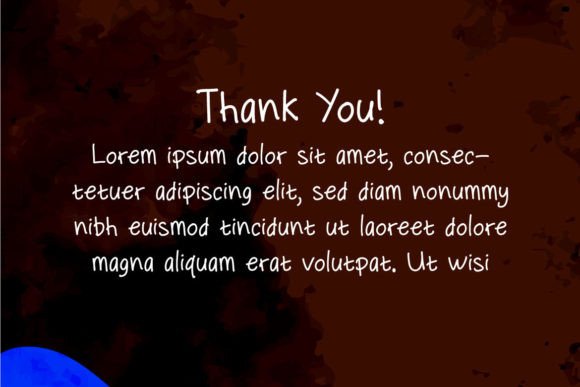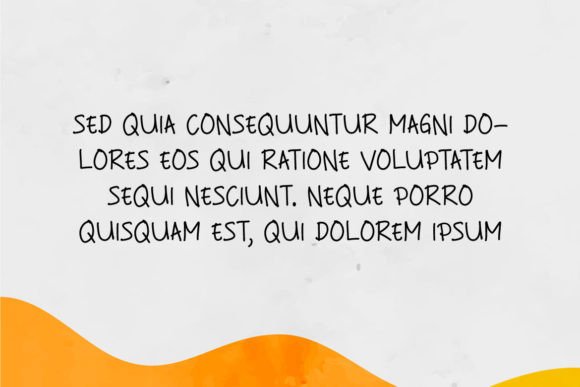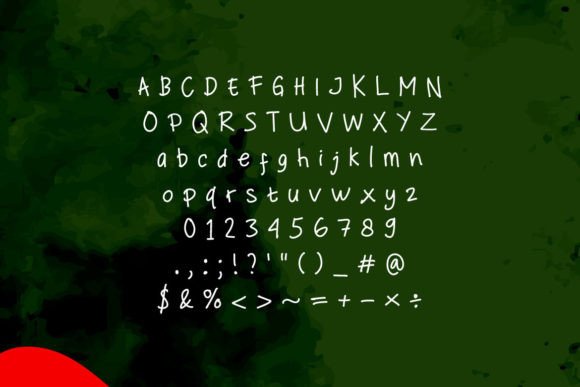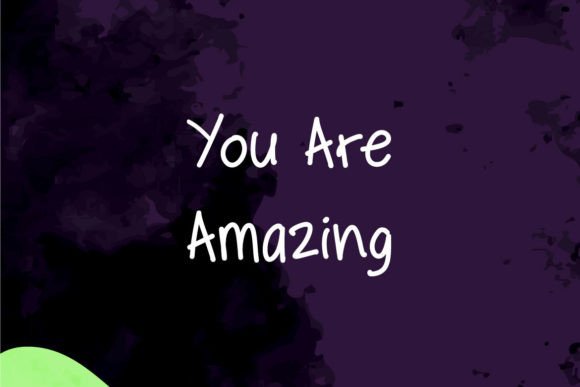
Introducing Art Born Font: The Perfect Handwritten Font for Creative Projects
Are you a designer, crafty person, or creative enthusiast looking for a unique and versatile font to elevate your projects? Look no further than Art Born Font, a beautiful handwritten font that can be used in a wide range of applications. In this article, we’ll explore the features and benefits of Art Born Font, and how it can add a personal touch to your designs.
What is Art Born Font?
Art Born Font is a carefully crafted handwritten font that exudes a sense of personality and charm. Its unique and artistic style makes it perfect for adding a touch of elegance and sophistication to any design project. Whether you’re working on a quote, music cover, children’s book, poster, advertisement, social media content, logo, or any other creative project, Art Born Font is the perfect choice.
Key Features of Art Born Font
- Handwritten style: Art Born Font features a beautiful handwritten style that adds a personal touch to any design project.
- Versatile: This font can be used in a wide range of applications, from digital projects to print materials.
- Elegant and sophisticated: Art Born Font’s unique style makes it perfect for designs that require a touch of elegance and sophistication.
- Easy to read: Despite its artistic style, Art Born Font is easy to read and understand, making it perfect for body text and captions.
Use Cases for Art Born Font
Art Born Font is an incredibly versatile font that can be used in a wide range of creative projects. Here are some use cases to get you started:
- Quotes and typography: Use Art Born Font to create stunning quote designs that are perfect for social media, posters, and print materials.
- Music covers and albums: Add a personal touch to your music covers and albums with Art Born Font’s unique handwritten style.
- Children’s books: Art Born Font is perfect for children’s books, adding a touch of whimsy and fun to your illustrations and text.
- Posters and advertisements: Use Art Born Font to create eye-catching posters and advertisements that stand out from the crowd.
- Social media content: Elevate your social media content with Art Born Font, creating engaging and shareable posts that showcase your brand’s personality.
- Logos and branding: Art Born Font can be used to create unique and memorable logos that reflect your brand’s values and personality.
Why Choose Art Born Font?
With so many fonts available, why choose Art Born Font? Here are just a few reasons why designers and crafters love this font:
- Unique style: Art Born Font’s handwritten style is unlike any other font on the market, making it perfect for designers who want to stand out.
- High-quality design: Art Born Font is carefully crafted to ensure that it looks great in any size or application.
Art Born Font is a beautiful and versatile handwritten font that can elevate any design project. With its unique style, high-quality design, and ease of use, it’s perfect for designers, crafters, and creative enthusiasts who want to add a personal touch to their work. Whether you’re working on a quote, music cover, children’s book, poster, advertisement, social media content, logo, or any other creative project, Art Born Font is the perfect choice. So why wait? Download Art Born Font today and start creating stunning designs that showcase your personality and style!